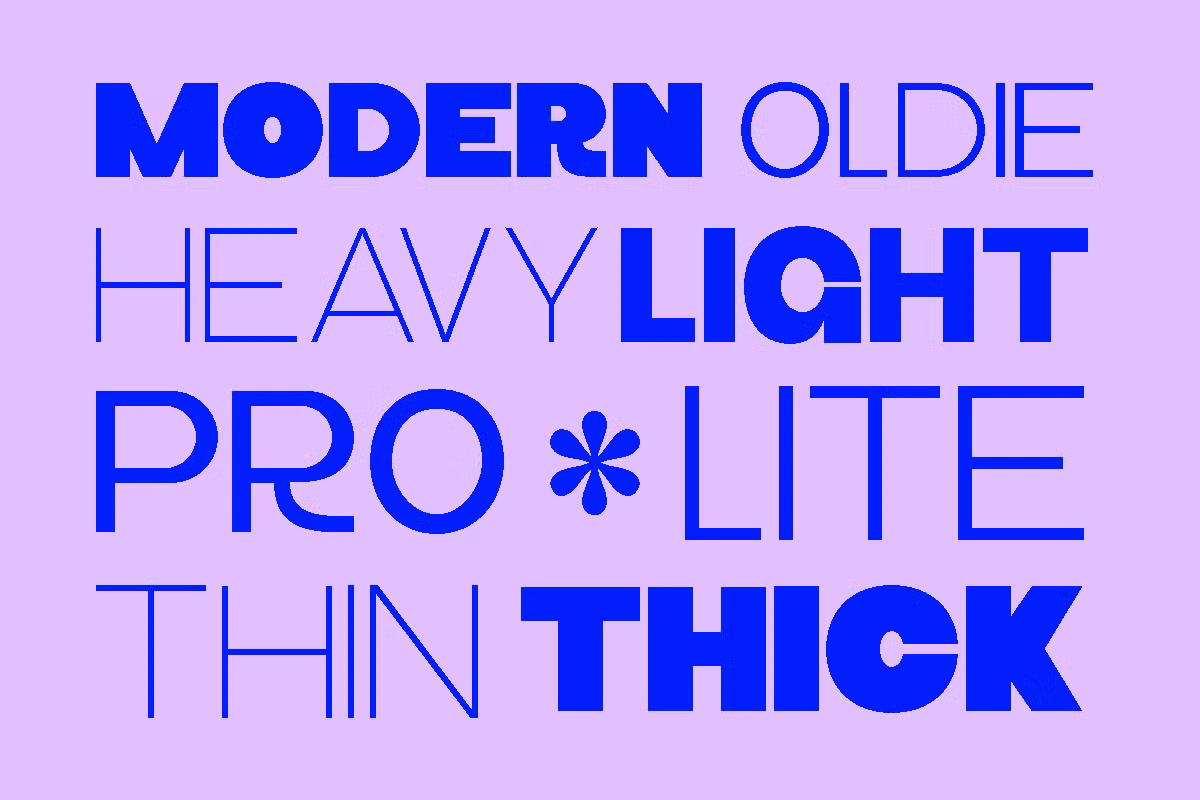
Crog is wide, round and very heavy at its boldest. Pandeka Studio sets it on the cover as “Crog Heavy Sans” in blue capitals on lilac, and at that weight the letters almost touch. What makes the family interesting is the other end: the Thin is a single hairline, so the same shapes can look delicate or blunt.
The full family has nine weights, Thin, Extra Light, Light, Regular, Medium, Semi Bold, Bold, Extra Bold and Black. The second preview mixes them line by line (“Modern Oldie, Heavy Light, Pro Lite, Thin Thick”) to show how well they combine. The download on this page is a single OTF file, so check which weight you have before you plan a layout around it.
Best uses for Crog
- Large poster headlines
- Logo wordmarks
- Album artwork
- Brand identity mockups
- Bold web hero sections
Crog’s wide shapes contrast nicely with Inter Tight for body text. Fraunces gives a serif counterpoint and Space Mono suits small print.
Crog Sans Serif Font